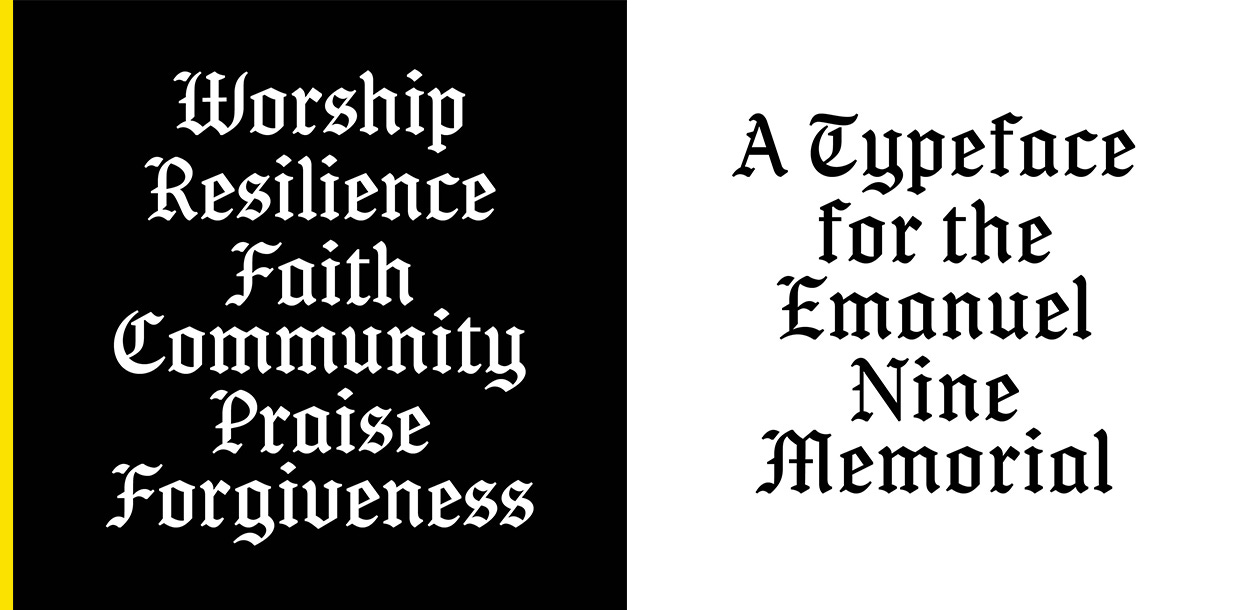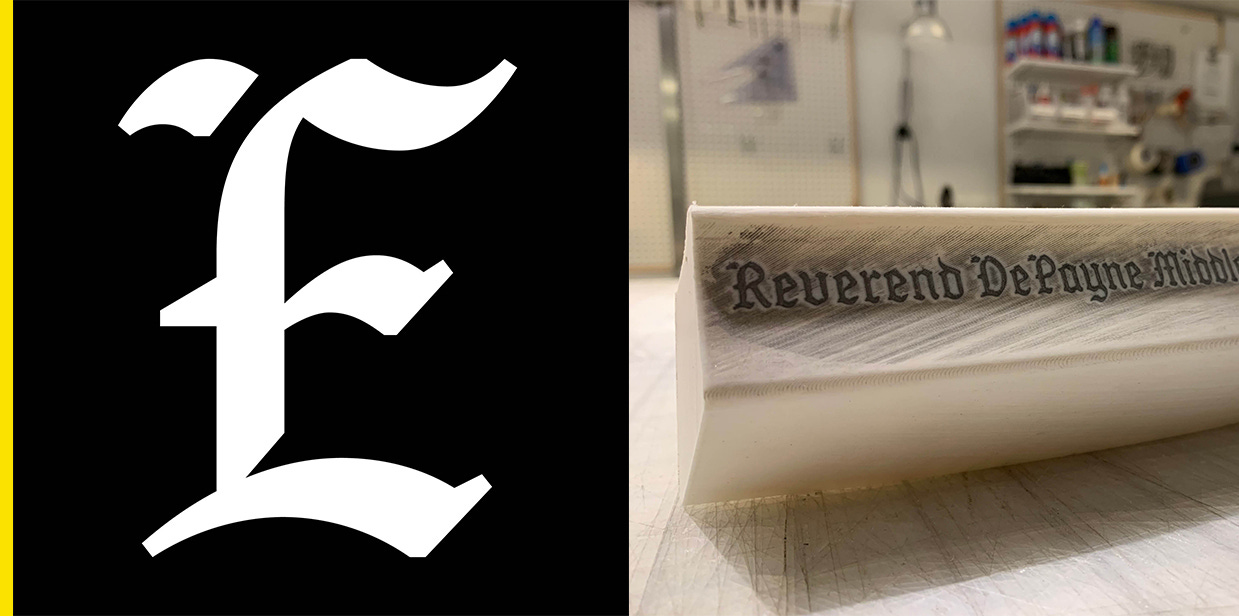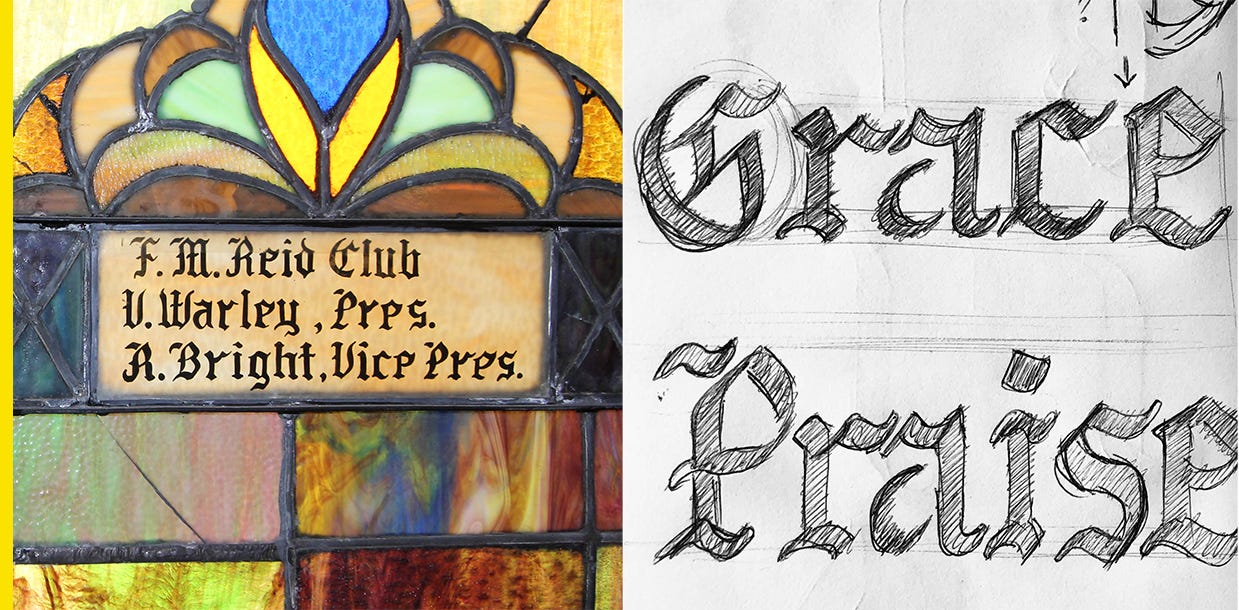
Designing a typeface for the Mother Emanuel church memorial
A memorial is being planned to remember the nine worshipers who were killed by a white supremacist in 2015 at the Mother Emanuel African Methodist Episcopal Church in Charleston, South Carolina, and the memorial will display their names in a custom typeface.
“So much care is put into the design of the architecture of the memorials, but people tend to simply default to nondescript or nonspecific typography for the listing of the names or whatever inscription goes on,” said Michael Bierut, a partner at the design firm Pentagram, which provided pro bono counsel on the project. “The names actually are what connect them to the human beings that the work is memorializing and honoring.”
Bierut and Pentagram associate partner Jonny Sikov traveled to Charleston and met with Reverend Eric Manning to tour the church, and what stood out to them was the hand lettering on stained glass windows.
“We were really trying to see what’s already there in the church,” Bierut said. “What could be something that could link this new memorial to how the church existed over its history?”
Designers Wael Morcos and Jon Key, co-founders and partners at the Brooklyn studio Morcos Key, created the typeface after looking through images from the church. Morcos, who is from Beirut, Lebanon, is experienced with Arabic typography, an asset when creating ornate blackletter type. Their lettering had to be designed specifically for stone, which meant, for example, it couldn’t be too thin, he said.
“The thin parts of the letters would not be very delicate, the spacing between the letters had to be a little bit accommodating of the structure in which they are carved,” Morcos said. Ultimately, the typeface “helps make the story more specific to these lives.”
Key, who grew up in Seale, Alabama, was familiar with the style of Black Southern churches and wanted to keep the idiosyncrasies of the hand-done type.
“It was nice comparing all of these specific nuances that appeared in the hand-done typography and comparing it to historical instances of blackletter,” he said. “I think one of the things for us was we wanted a blackletter that had the same type of softness as if it was made by hand, keeping in mind that obviously, the end result typeface was going to be used carved in stone.”
The designers saw the project as a way to use their skills to give back and they were struck by the permanence their work would have.
“Usually, our work is printed on paper or online, and you’re lucky if what any of what you create lasts more than a decade or two,” Key said. “It’s kind of quite exciting that their names will even outlive the designers that designed them.”
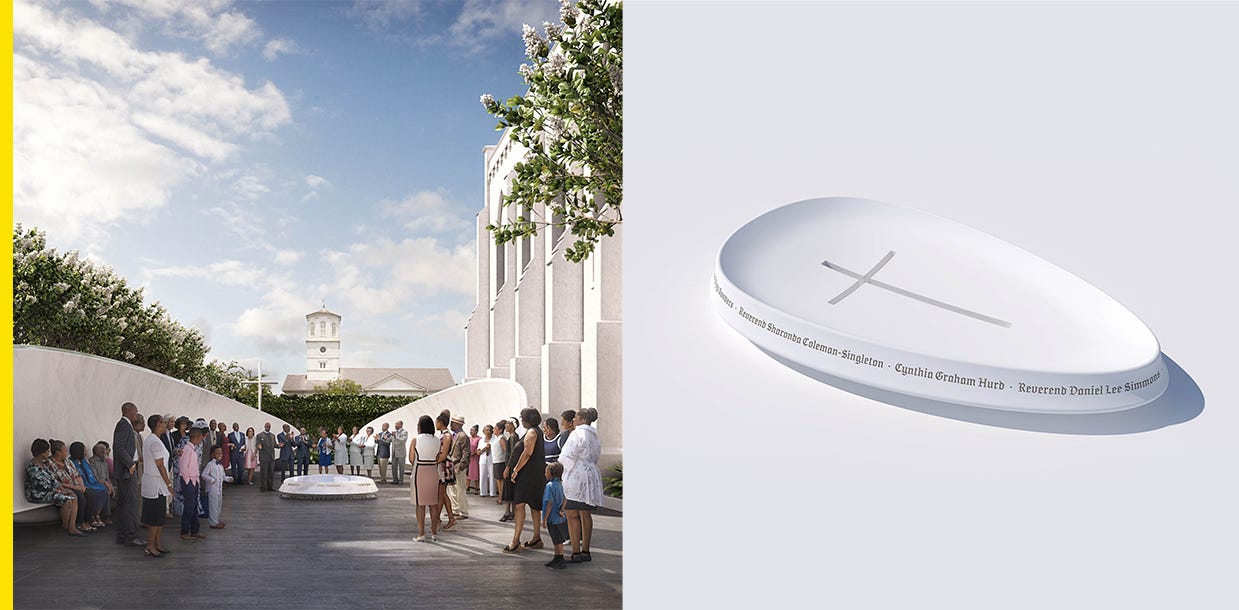
The memorial was designed by Michael Arad of Handel Architects, who also designed the National September 11 Memorial at Ground Zero. It will include curved stone benches around a marble fountain that will display the victims’ names and a cross. The expected groundbreaking is in 2021, and if you would like to donate to the memorial, you can do so here.